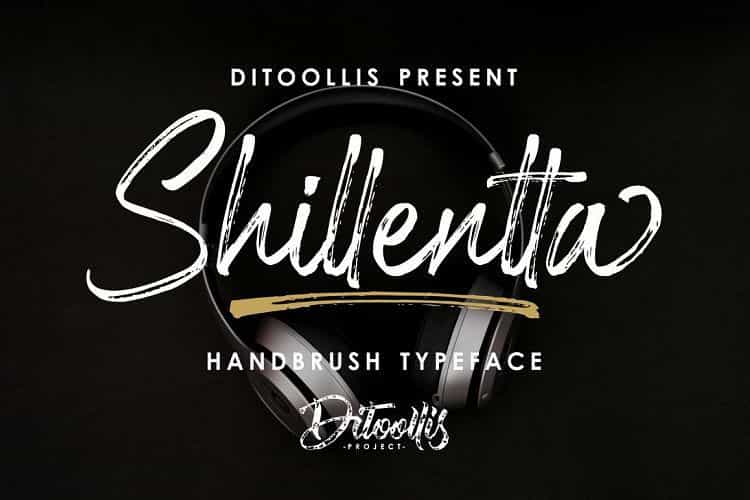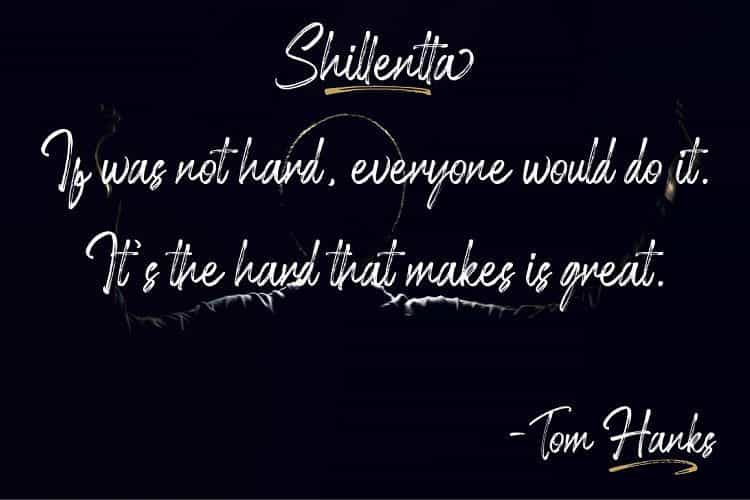
Shillentta is a highly constructed and powerful handbrush script with different forms of letters. The elegant appearance of this model will certainly create a great impression! This is the font that is very appropriate to be implemented for your design. This font is also complete.